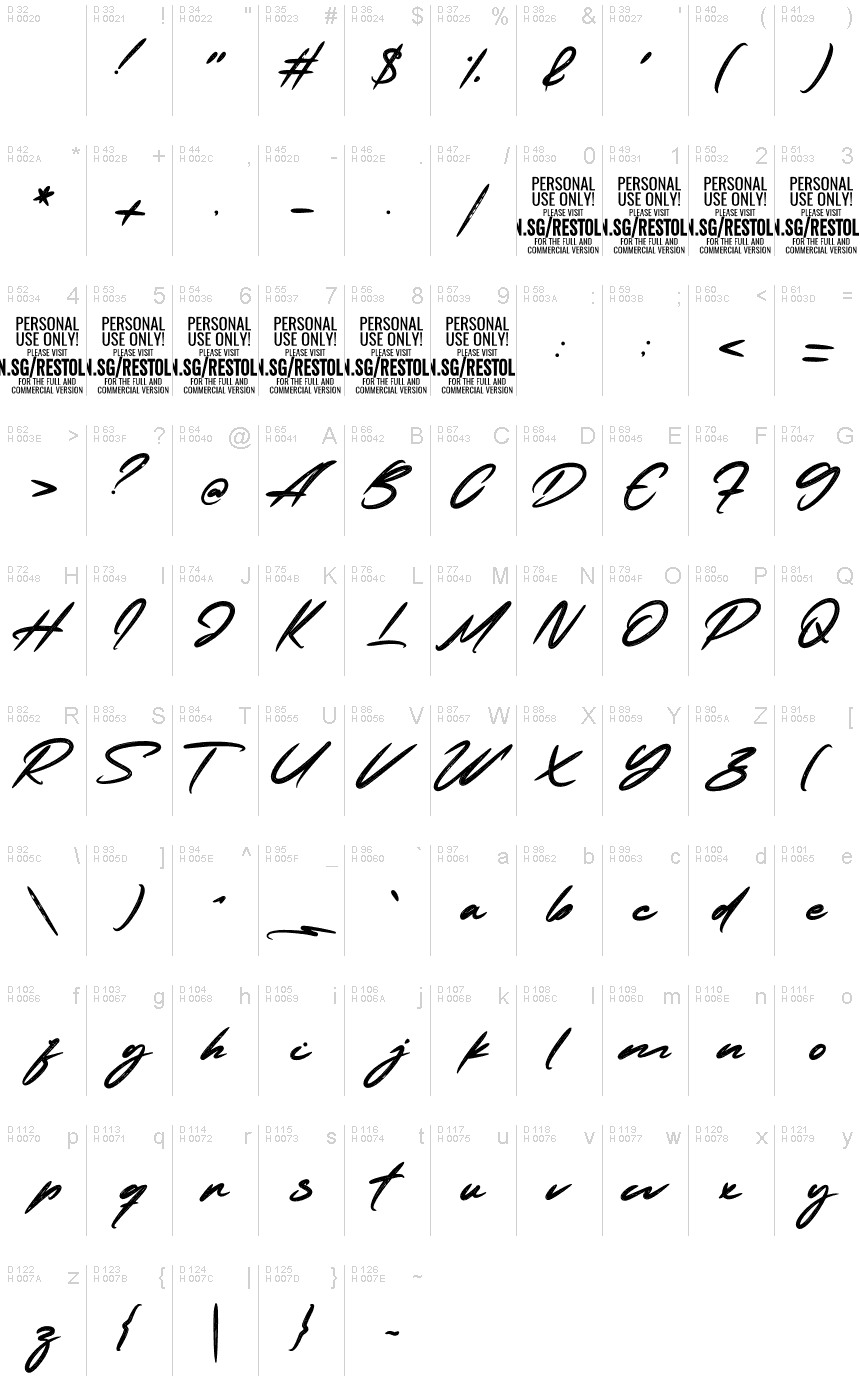
Restollia Script PERSONAL USE Regular
Restollia Script is an elegant signature-style handwritten font designed by Mans Greback. Its light weight makes it suitable for a variety of creative projects, such as wedding invitations, greeting cards, logos, branding and more.
Use underscore _ anywhere in a word to make a swash.
Example: Letter_ings
Use multiple underscores to make different swashes.
Example: Hand________written